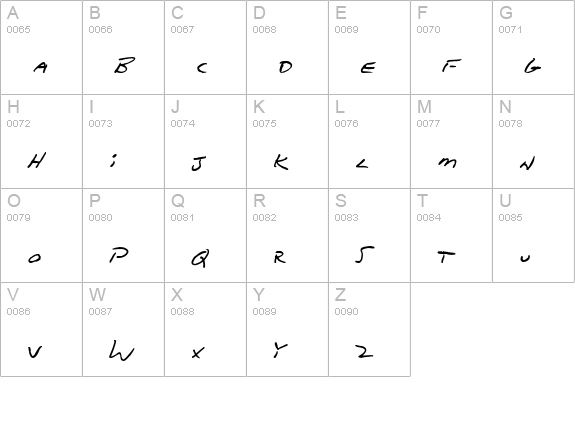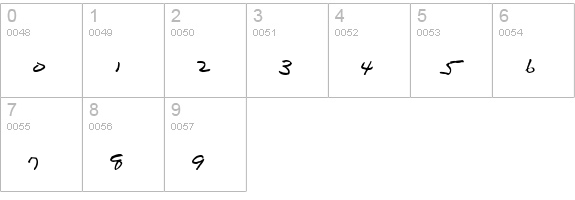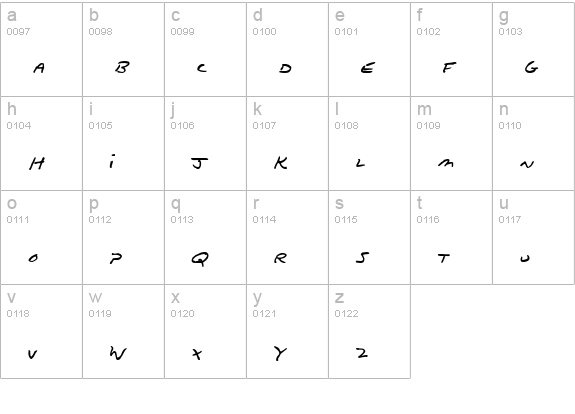
Dad's Recipe Font Details
Introducing Dad's Recipe, a delightful and versatile font that captures the essence of homemade goodness and timeless comfort. This font is the perfect choice for adding a touch of warmth and nostalgia to your designs. With its handcrafted feel and charming character, Dad's Recipe brings to life the cherished memories of family gatherings, where delicious meals were lovingly prepared and shared. Not only does Dad's Recipe exude a sense of familiarity and tradition, but it also offers a wide range of stylistic options, allowing you to customize your typography to suit any project. From elegant script to bold display, this font effortlessly adapts to your creative vision, making it an essential tool for designers, artists, and DIY enthusiasts alike. The best part? Dad's Recipe is completely free! Yes, you read that right. This incredible font is available to download at FontsMarket.com, where you can easily access and enjoy its full potential without spending a dime. Whether you're working on personal projects or professional designs, Dad's Recipe is here to lend its unique charm and versatility, all without breaking the bank. So why wait? Discover the magic of Dad's Recipe and infuse your creations with a touch of heartfelt nostalgia and timeless appeal. Download this free font today and let your imagination run wild. With Dad's Recipe by your side, there are no limits to the warm and inviting designs you can create.